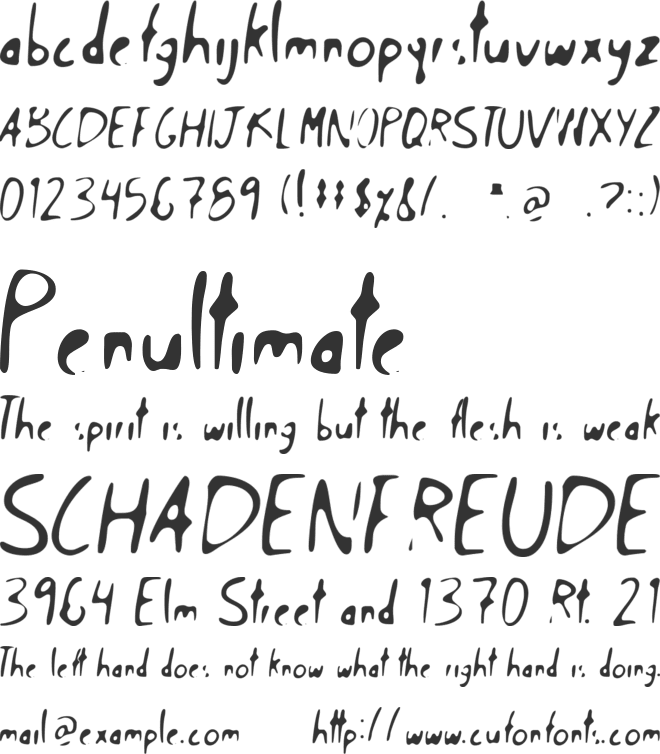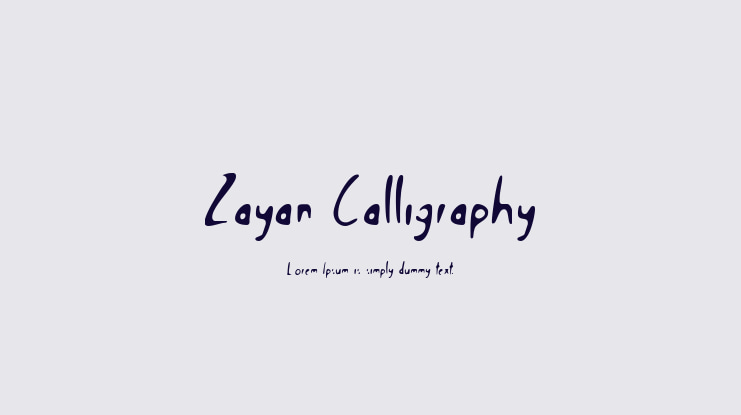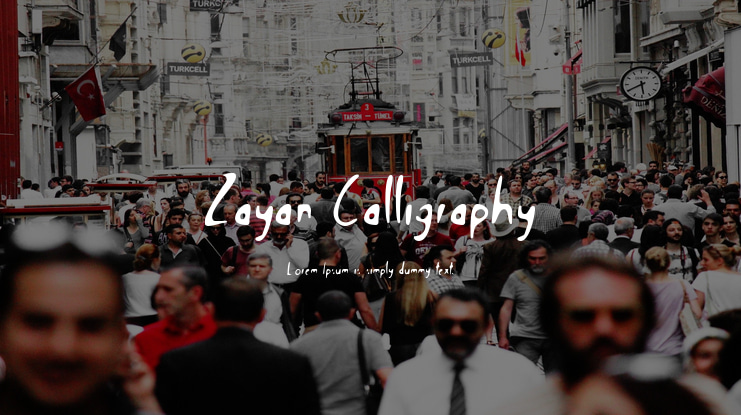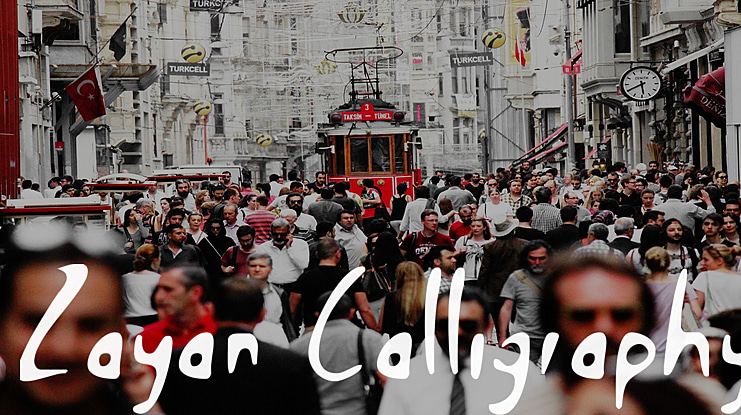
Zayan Calligraphy Font
Zayan Calligraphy is a hand-drawn vintage ink font with ink style letters. It's great for logos, branding, print projects and any attention drawing headline. It included upper case and lowercase only.
You can use it to showcase old and vintage touch to your projects.